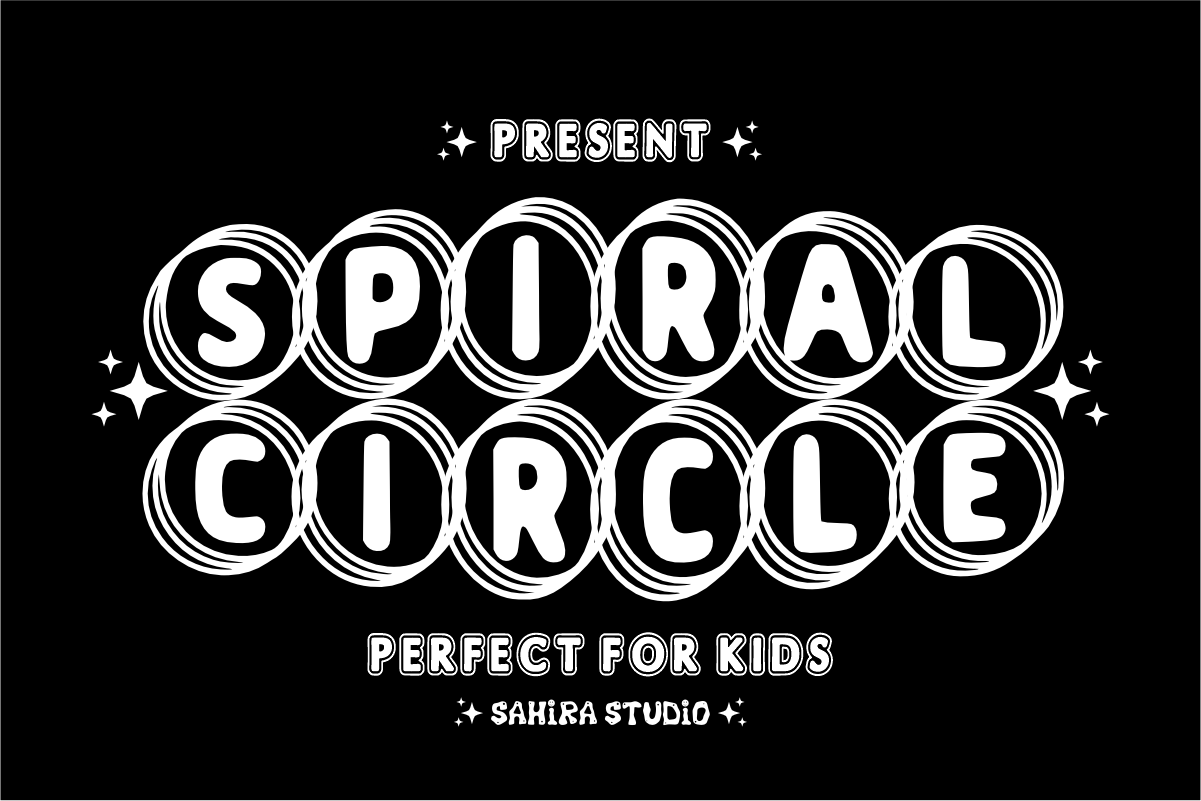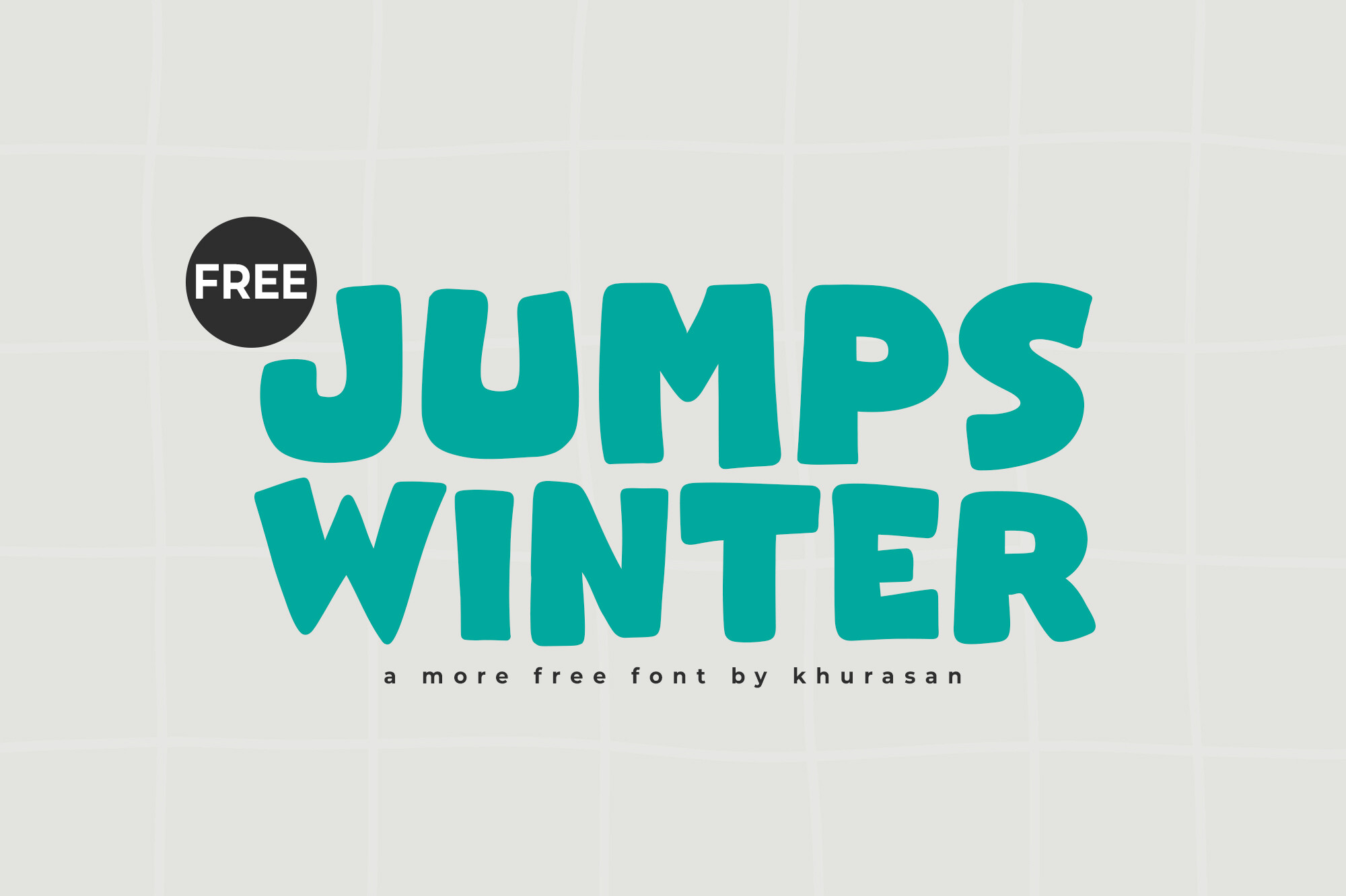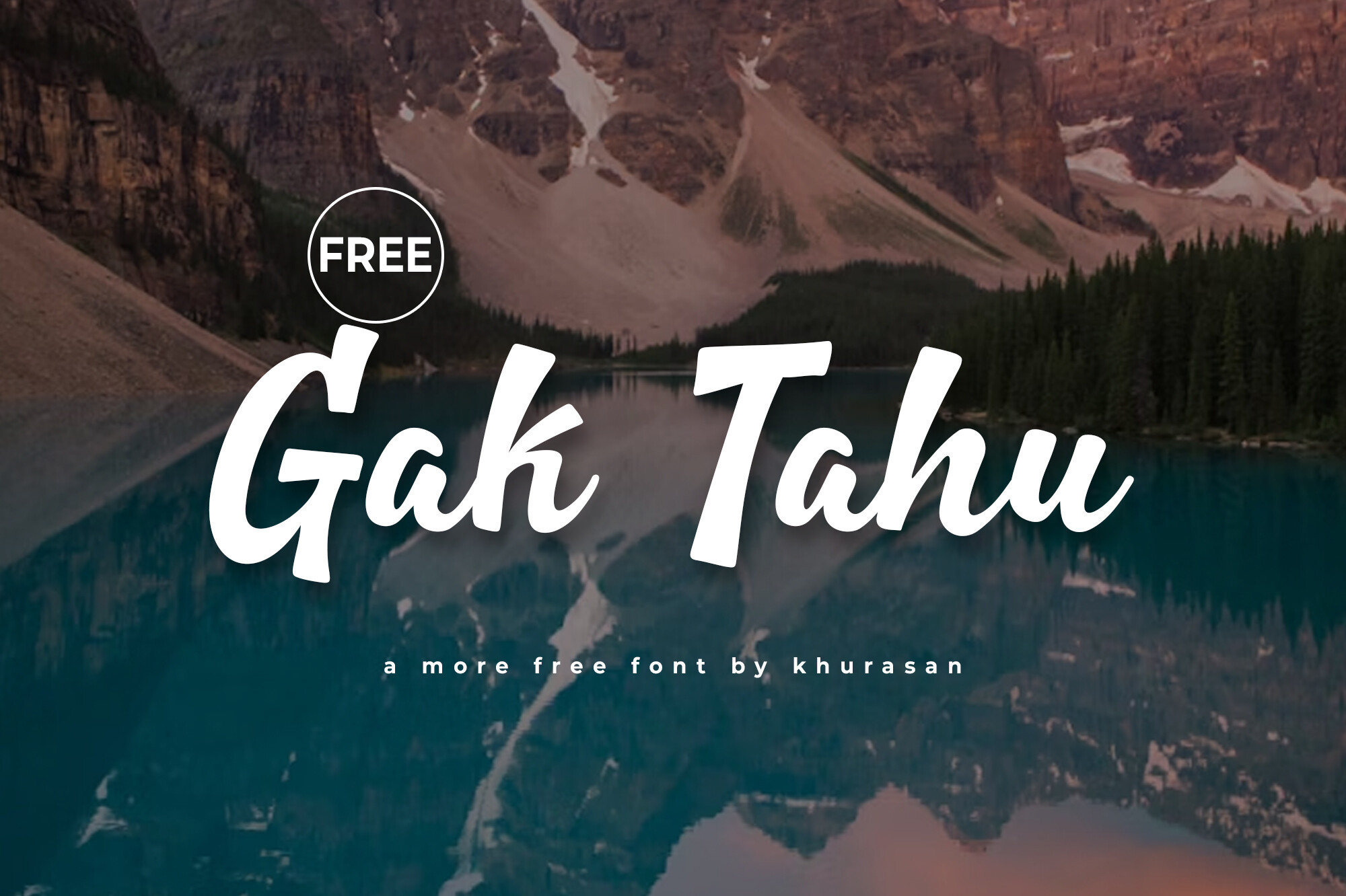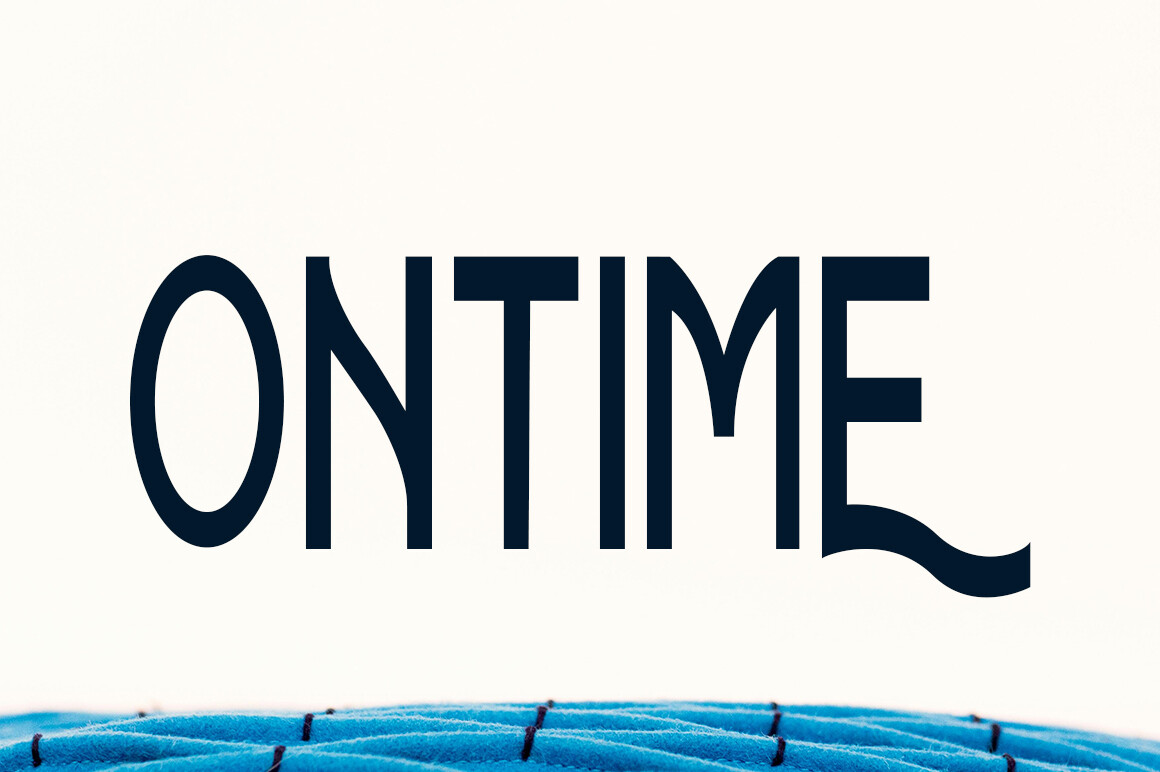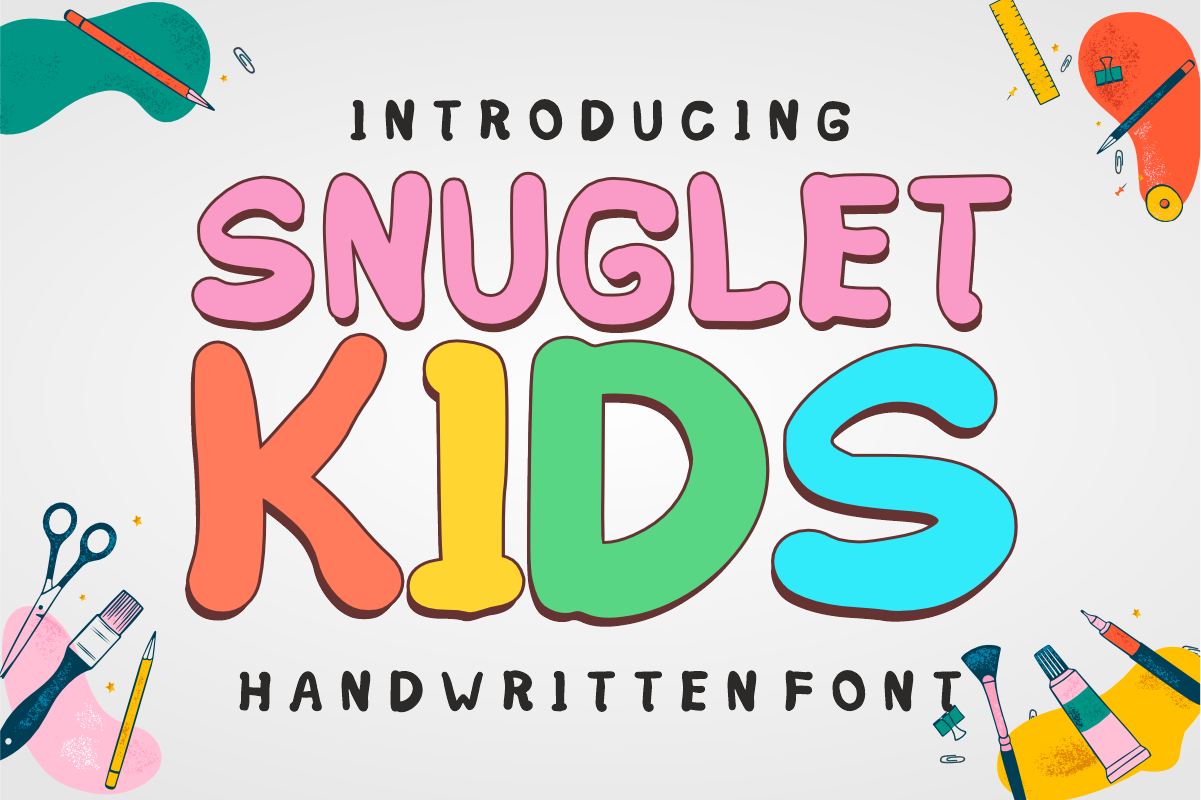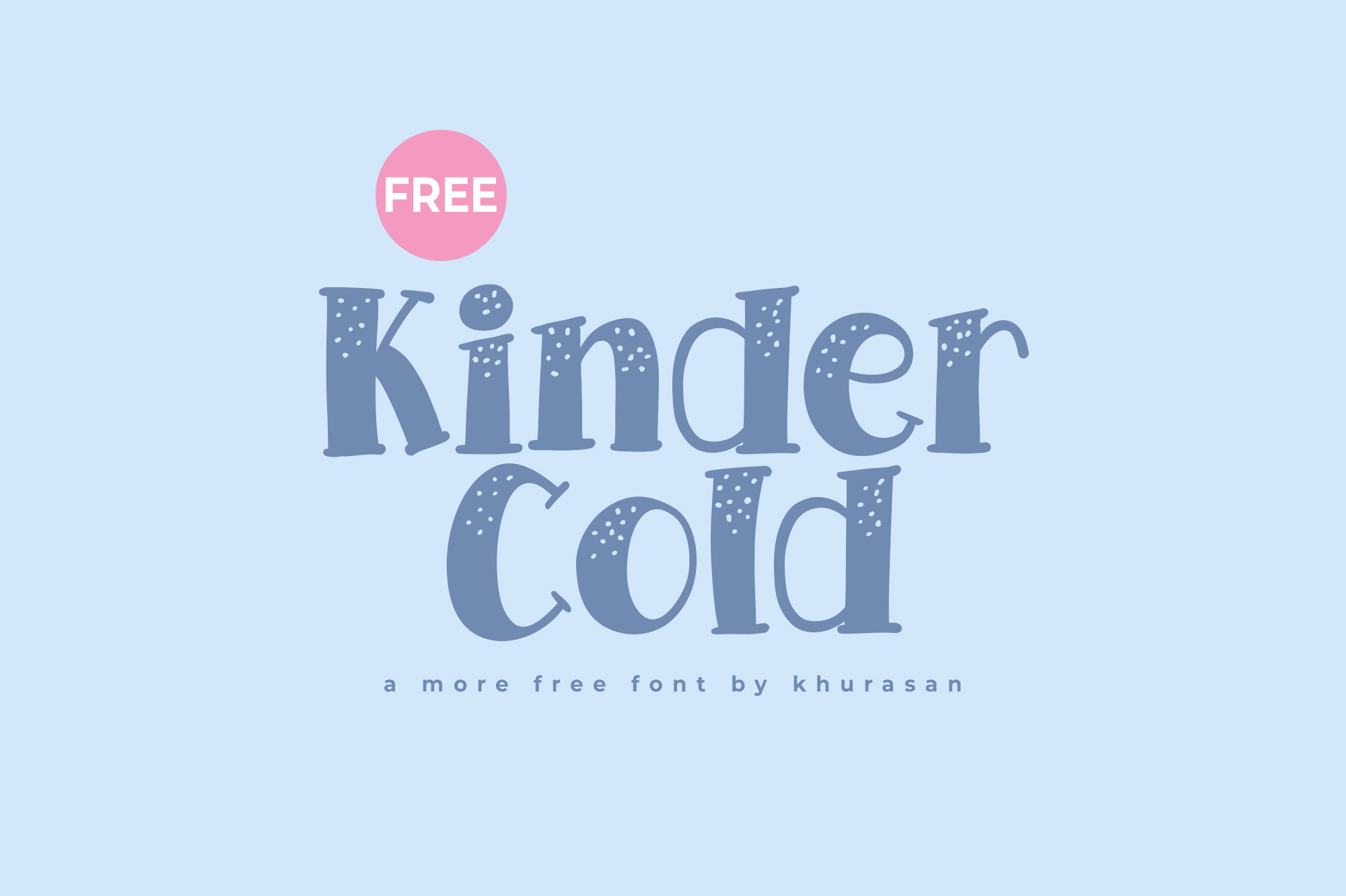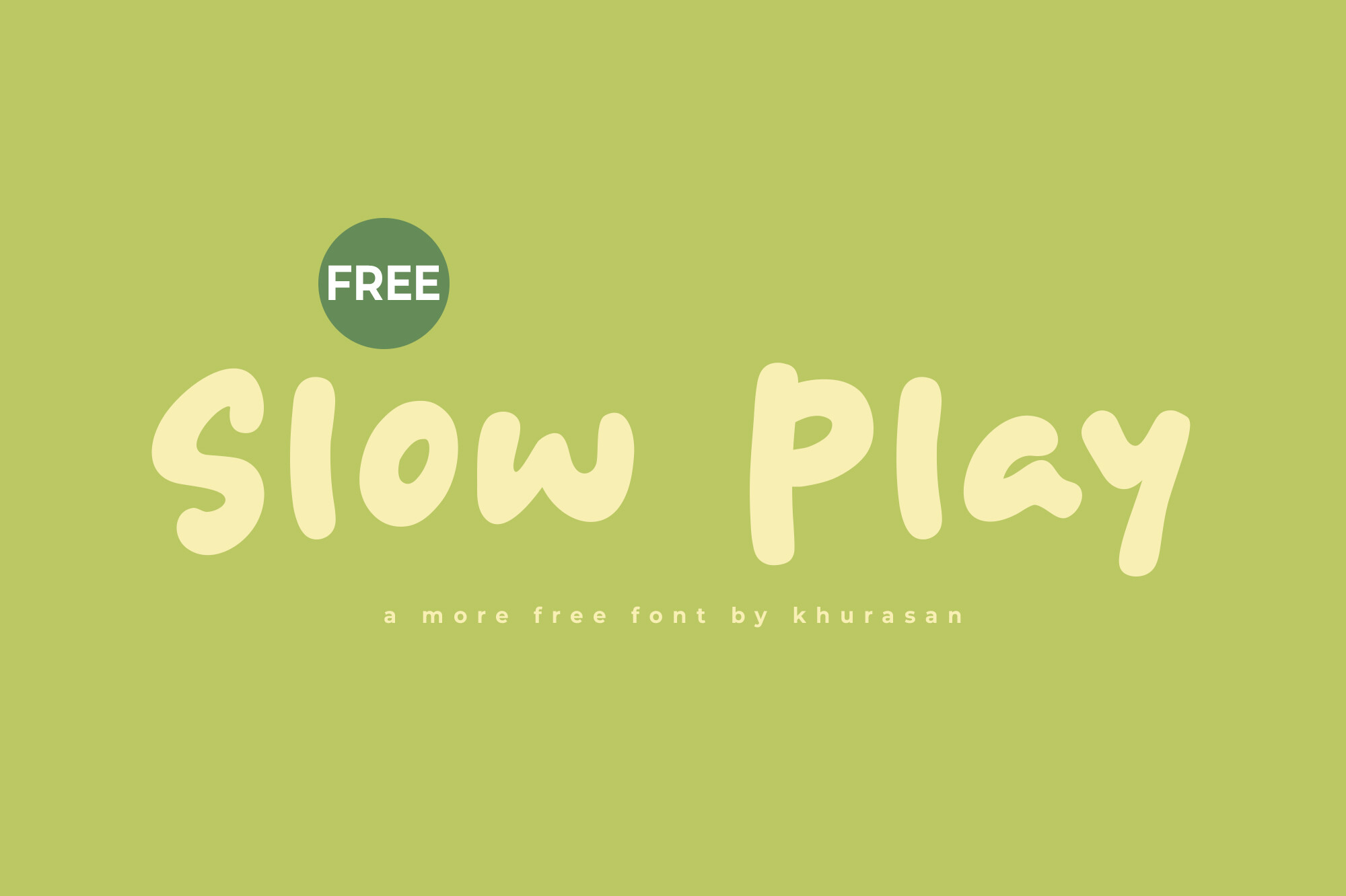
Welcome to this week's edition of Free Fonts Friday! Explore our handpicked collection of unique fonts that are available for free commercial use. This week, we have a variety of styles to inspire your creative projects, including the elegant handwritten Connecticut and Arizona, the playful Spiral Circle and Snuglet Kids, and the modern sans serif Ontime. Each font has been specifically chosen for its versatility and charm, ensuring they can elevate any design. Dive into the world of typography with these stunning options and unleash your creativity!
Connecticut
Connecticut is a beautifully crafted handwritten font that exudes elegance and charm. Each character boasts a unique, artistic flair, perfect for elevating logos, branding projects, and quotes. Its versatility shines through in various applications, making it an ideal choice for wedding invitations, journals, greeting cards, product packaging, and social media posts. With Connecticut, your designs will come to life, capturing the attention of your audience with its stylish and timeless appeal.
Spiral Circle
Spiral Circle is a vibrant display font that captures attention with its playful and dynamic design. Featuring bold, rounded letters encased in an energetic spiral outline, this font is perfect for youth-oriented projects. Its whimsical character structure adds depth and movement, making it an excellent choice for children's invitations, carnival promotions, toy packaging, and creative headers. Let Spiral Circle add a fun and captivating touch to any design, ensuring your message stands out vividly.
Jumps Winter
Jumps Winter is an adorably modern display font that adds a touch of whimsy to any design. Its playful characteristics make it perfect for a variety of applications, including posters, logos, magazines, and book covers. This font stands out in every project, seamlessly blending with your creative ideas. Its charming and unique aesthetic ensures your designs will capture attention and inspire. Use Jumps Winter to elevate your work and create stunning visuals that resonate with audiences.
Amorvella
Amorvella is a captivating handwritten font that radiates elegance and romance. Its fluid strokes and soft curves create a luxurious feel, making it perfect for wedding invitations, boutique logos, and feminine branding. This font effortlessly combines sophistication with modernity, allowing it to shine in various design contexts. Whether you're crafting a signature or enhancing a branding project, Amorvella adds a unique touch that elevates your creative work and captivates your audience's attention.
Gak Tahu
Gak Tahu is a delightful modern handwritten script font that captures the essence of natural penmanship. Its clean, flowing lines and slightly slanted form lend an air of elegance and warmth, suitable for various creative projects. Whether used for branding, blog headers, social media graphics, or minimalist logos, this font maintains excellent legibility while adding a personal touch. Perfect for those seeking a contemporary yet authentic aesthetic, Gak Tahu enhances your designs with its stylish charm.
Ontime
Ontime is a modern sans serif font that embodies professionalism and clarity. Its clean lines and well-balanced letter proportions make it an excellent choice for corporate branding, digital interfaces, and presentations. This font’s geometric design ensures it stands out while maintaining a contemporary feel, making it perfect for any minimalist design project. With Ontime, you can convey messages with confidence and impact, ensuring your work is both stylish and legible.
Arizona
Arizona is a stunning handwritten font that brings warmth and personality to your designs. Each character features a unique touch, making it perfect for creating eye-catching logos, branding projects, and inspirational quotes. Ideal for wedding stationery, journals, and product packaging, Arizona offers a timeless elegance that resonates with various audiences. Incorporate this versatile font into your creative projects and watch as it transforms ordinary designs into memorable statements that capture attention.
Snuglet Kids
Snuglet Kids is a delightful handwritten display font designed to embody the whimsical spirit of childhood. Its bold, rounded letterforms radiate warmth and friendliness, making it perfect for educational materials, children's book titles, and playful branding. The authentic texture of its strokes mimics natural handwriting, ensuring legibility while adding a charming touch. Snuglet Kids brings a comforting presence to your projects, making it an ideal choice for any design aimed at young audiences and families.
Kinder Cold
Kinder Cold is a whimsical display font that brings a sense of fun and creativity to your designs. With its charming characters and playful curves, it's perfect for posters, logos, and children’s materials. This versatile font can adapt to numerous projects, allowing your imagination to run wild. Whether you are designing book covers, banners, or any other creative endeavor, Kinder Cold will add a delightful touch that captures attention and evokes joy.